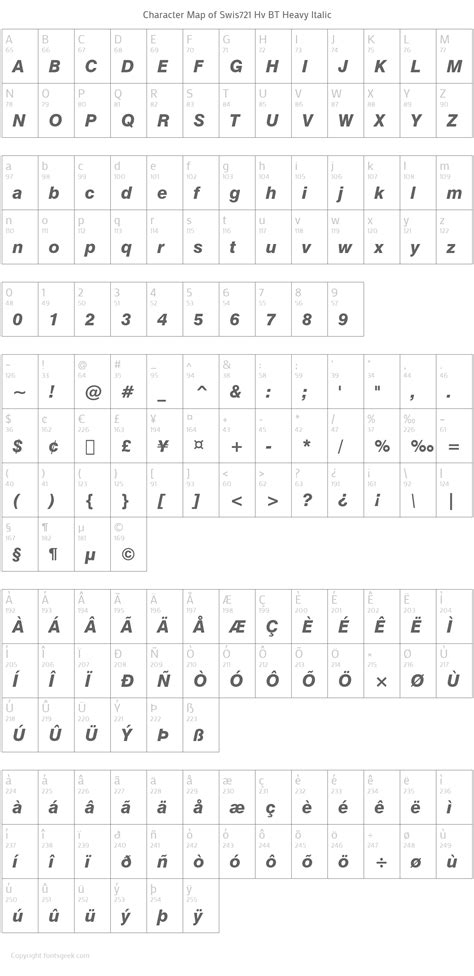
In the world of typography, fonts play a crucial role in shaping the visual identity of any design project. One font that has gained significant attention is the Swis721 Hv Bt Font. This font is part of the Swiss family, known for its clean, modern, and highly readable design. The Swis721 Hv Bt Font is particularly notable for its versatility and professional appearance, making it a popular choice for various applications, from print media to digital interfaces.
Understanding the Swiss Family of Fonts
The Swiss family of fonts, also known as the Helvetica family, originated in the 1950s and has since become a staple in the design world. The Swis721 Hv Bt Font is a specific variant within this family, characterized by its bold and heavy weight. This font is designed to be highly legible, even at smaller sizes, making it ideal for headlines, body text, and any other text that requires clarity and impact.
Key Features of the Swis721 Hv Bt Font
The Swis721 Hv Bt Font stands out due to several key features:
- Bold and Heavy Weight: The font’s bold and heavy weight makes it highly visible and impactful, perfect for headlines and titles.
- High Legibility: Despite its boldness, the font maintains excellent legibility, ensuring that text remains clear and easy to read.
- Modern Aesthetic: The clean and modern design of the Swis721 Hv Bt Font aligns well with contemporary design trends, making it a versatile choice for various projects.
- Versatility: This font can be used in a wide range of applications, from print media to digital interfaces, making it a valuable addition to any designer’s toolkit.
Applications of the Swis721 Hv Bt Font
The Swis721 Hv Bt Font is highly versatile and can be used in various design projects. Some of the most common applications include:
- Print Media: The font’s bold and heavy weight makes it ideal for print media such as posters, brochures, and magazines. It ensures that headlines and important text stand out, capturing the reader’s attention.
- Digital Interfaces: The font’s high legibility and modern aesthetic make it suitable for digital interfaces, including websites, mobile apps, and user interfaces. It ensures that text remains clear and readable on screens of all sizes.
- Branding: The Swis721 Hv Bt Font can be used in branding projects to create a strong and professional visual identity. Its clean and modern design aligns well with contemporary branding trends.
- Advertising: The font’s bold and impactful appearance makes it perfect for advertising materials, ensuring that messages are delivered clearly and effectively.
Designing with the Swis721 Hv Bt Font
When designing with the Swis721 Hv Bt Font, there are several best practices to keep in mind to ensure optimal results:
- Pairing with Other Fonts: The Swis721 Hv Bt Font pairs well with other fonts from the Swiss family, as well as complementary sans-serif and serif fonts. Experiment with different combinations to find the perfect match for your project.
- Color and Contrast: Use contrasting colors to make the bold and heavy weight of the font stand out. This can help create a strong visual hierarchy and ensure that important text is easily noticeable.
- Spacing and Alignment: Pay attention to spacing and alignment to maintain the font’s legibility and visual appeal. Ensure that there is enough space between lines and characters to prevent text from appearing cramped.
- Consistency: Maintain consistency in the use of the font throughout your design project. This helps create a cohesive and professional look, reinforcing your brand’s visual identity.
Comparing Swis721 Hv Bt Font with Other Fonts
To better understand the unique qualities of the Swis721 Hv Bt Font, it’s helpful to compare it with other popular fonts. Below is a table highlighting the key differences between the Swis721 Hv Bt Font and some of its counterparts:
| Font | Weight | Legibility | Aesthetic | Versatility |
|---|---|---|---|---|
| Swis721 Hv Bt Font | Bold and Heavy | High | Modern | High |
| Helvetica Bold | Bold | High | Modern | High |
| Arial Black | Medium | Contemporary | Medium |
| Times New Roman Bold | Bold | High | Traditional | Medium |
As seen in the table, the Swis721 Hv Bt Font stands out for its bold and heavy weight, high legibility, modern aesthetic, and versatility. These qualities make it a strong contender in the world of typography, suitable for a wide range of design projects.
📝 Note: When comparing fonts, consider the specific needs of your project. While the Swis721 Hv Bt Font is highly versatile, other fonts may be more suitable for certain applications.
Case Studies: Swis721 Hv Bt Font in Action
To illustrate the effectiveness of the Swis721 Hv Bt Font, let’s explore a few case studies where this font has been successfully used:
Case Study 1: Corporate Branding
A leading tech company wanted to revamp its branding to reflect a modern and innovative image. The design team chose the Swis721 Hv Bt Font for its bold and heavy weight, which conveyed strength and reliability. The font was used in the company’s logo, marketing materials, and digital interfaces, creating a cohesive and professional visual identity.